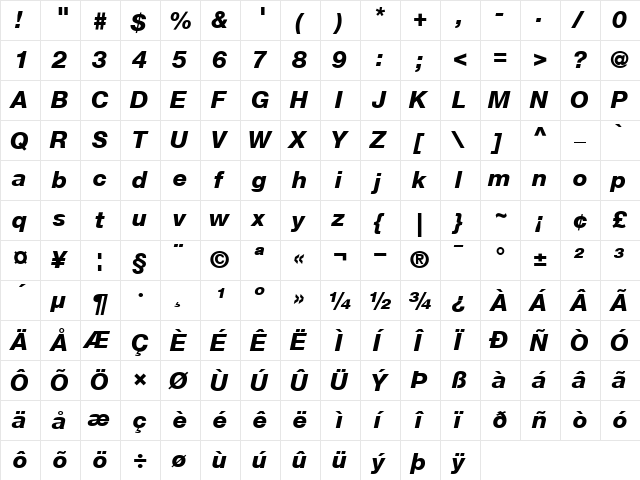
Helvetica86-Heavy HeavyItalic Font Preview
Helvetica86-Heavy HeavyItalic
Design Context for Helvetica86-Heavy Typeface
Helvetica86-Heavy is a composed and adaptable typeface that performs quietly and consistently across a wide range of design contexts. Its italic angle brings a sense of urgency and motion to the letterforms.
Pro Tip: Try Helvetica86-Heavy for annotation and caption copy alongside an upright companion — the contrast in angle creates a dynamic but ordered typographic system.